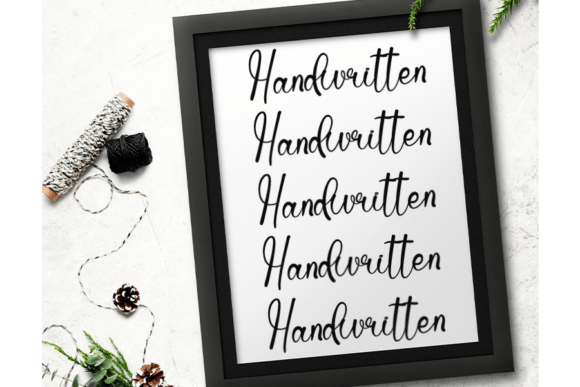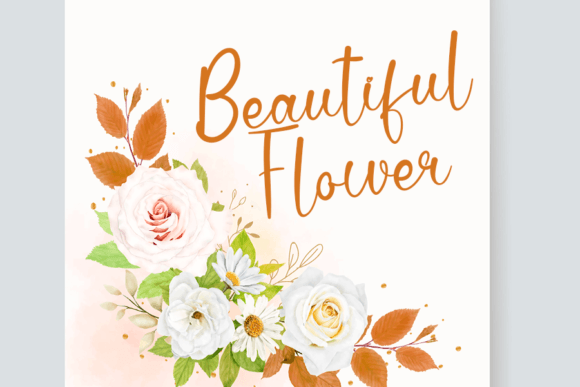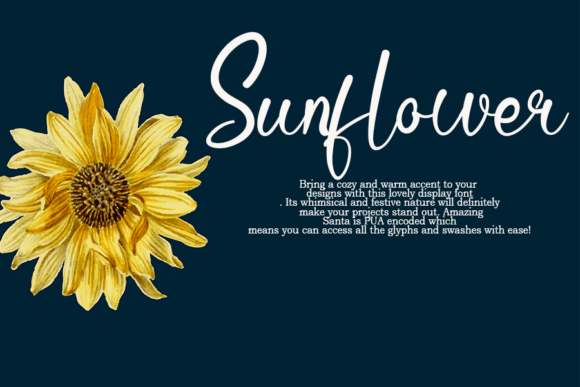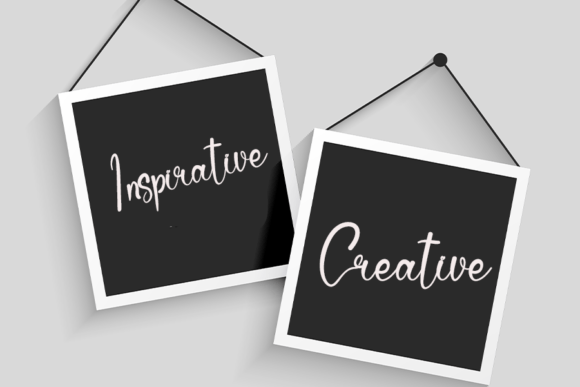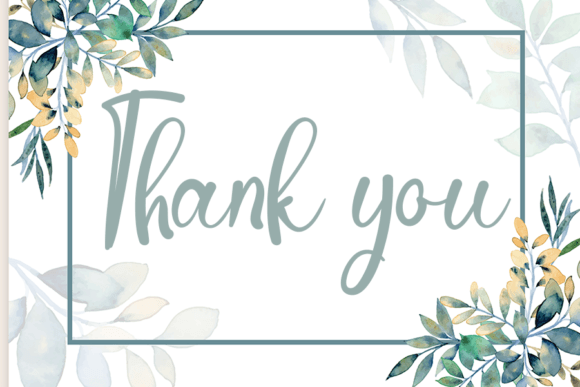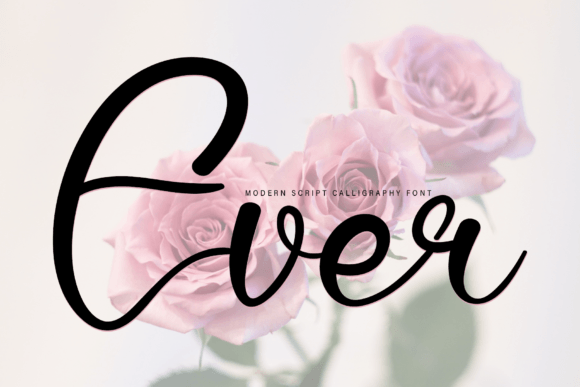
Discover the Elegance of Ever Font: Elevate Your Designs with a Timeless Handwritten Style
Are you on the hunt for a font that exudes elegance, sophistication, and a touch of timeless charm? Look no further than Ever Font, a beautiful handwritten font that is sure to capture your heart. With its incredibly distinct style, Ever Font is the perfect addition to any design project, allowing you to create spectacular and memorable designs that stand out from the crowd.
The Unique Charm of Ever Font
Ever Font is described as a neat and beautiful handwritten font, characterized by an elegant touch that sets it apart from other fonts. Its unique charm lies in its ability to strike the perfect balance between modernity and classic appeal, making it an ideal choice for designers and crafters looking to add a touch of sophistication to their work.
Whether you’re working on a branding project, a wedding invitation, or a personal craft, Ever Font’s timeless style ensures that your design will remain relevant and stylish for years to come. Its elegant touch adds a level of refinement and luxury, making it perfect for high-end designs, editorial content, and creative projects that demand attention to detail.
What Makes Ever Font Stand Out?
So, what makes Ever Font so special? Here are a few key features that set it apart:
- Incredibly Distinct Style: Ever Font boasts a unique and recognizable style that is sure to make your designs stand out. Its elegant touch and beautiful handwritten curves make it a joy to use and a pleasure to behold.
- Timeless Appeal: Unlike trendy fonts that quickly go out of style, Ever Font’s classic charm ensures that it will remain relevant and stylish for years to come.
- Versatility: Ever Font is incredibly versatile, making it suitable for a wide range of design projects, from branding and advertising to crafting and DIY.
- Elegant Touch: The font’s elegant touch adds a level of sophistication and refinement, making it perfect for high-end designs and editorial content.
How to Use Ever Font in Your Designs
Using Ever Font in your designs is easy and fun. Here are a few tips to get you started:
- Pair it with Other Fonts: Ever Font pairs beautifully with other fonts, allowing you to create stunning contrast and visual interest in your designs.
- Experiment with Colors: The font’s elegant touch looks great with a range of colors, from classic black and white to bold and bright hues.
- Use it for Headings and Titles: Ever Font is perfect for headings and titles, adding a touch of sophistication and elegance to your designs.
- Add it to Your Brand Identity: If you’re looking to elevate your brand identity, consider incorporating Ever Font into your logo, website, or marketing materials.
Who Can Benefit from Ever Font?
Ever Font is perfect for a wide range of designers and crafters, including:
- Graphic Designers: If you’re a graphic designer looking for a font that exudes elegance and sophistication, Ever Font is a great choice.
- Crafters and DIY Enthusiasts: If you enjoy crafting, scrapbooking, or DIY projects, Ever Font is a great addition to your design toolkit.
- Branding and Marketing Professionals: If you’re looking to elevate your brand identity, Ever Font is a great choice for logos, websites, and marketing materials.
In conclusion, Ever Font is a beautiful handwritten font that is sure to capture your heart. With its incredibly distinct style, timeless appeal, and elegant touch, it’s the perfect addition to any design project. Whether you’re a graphic designer, crafter, or branding professional, Ever Font is a great choice for creating spectacular and memorable designs. So why wait? Fall in love with Ever Font today and elevate your designs to new heights!